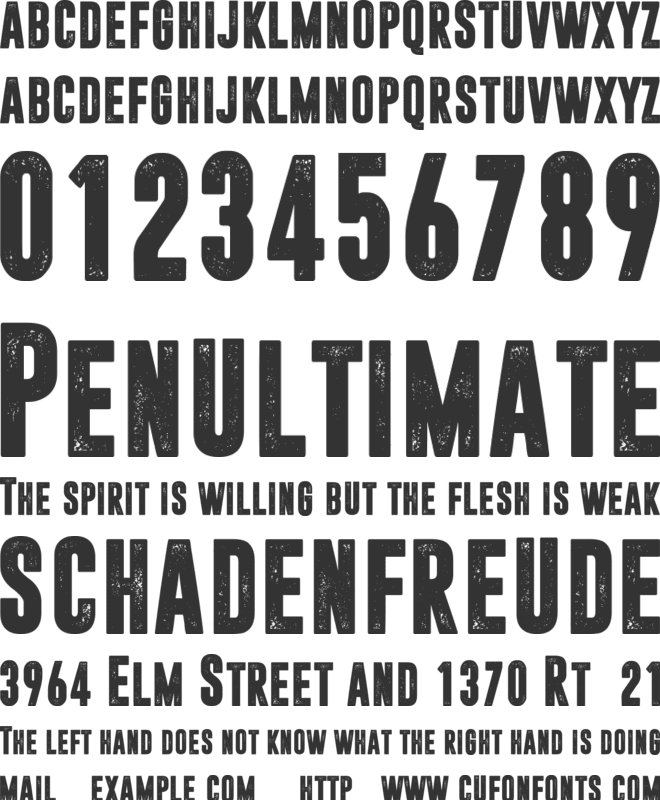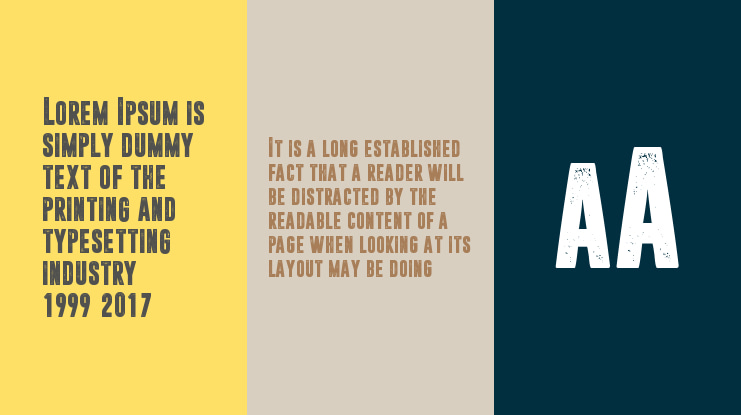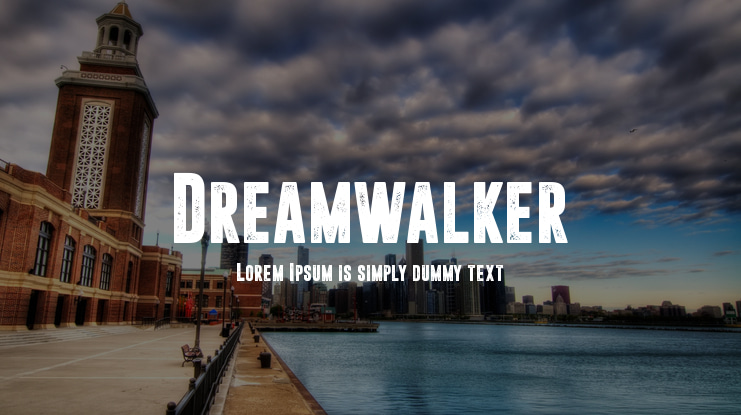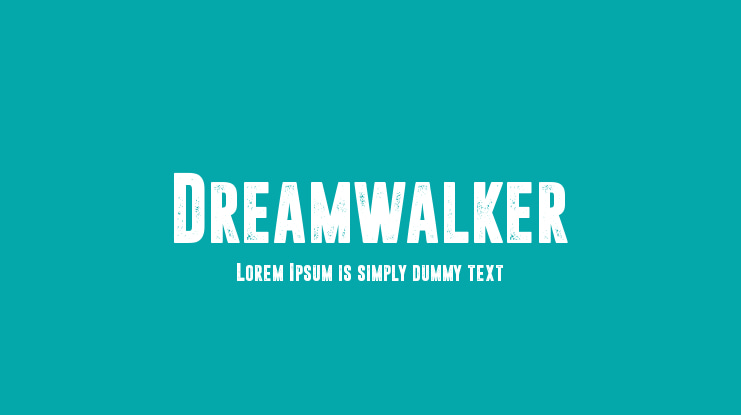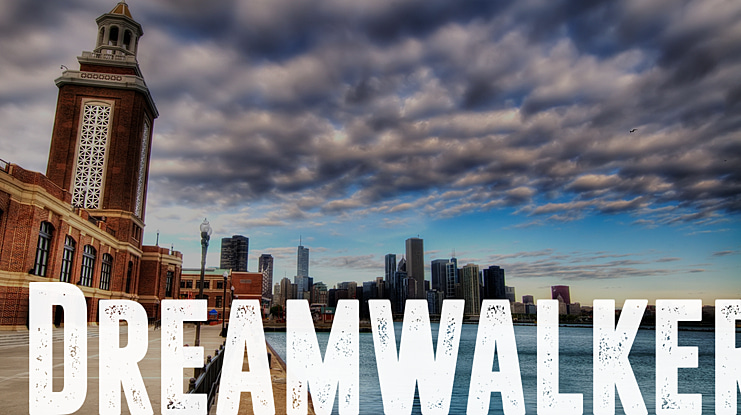
Dreamwalker Font Family
Textured Sans Serif font works well with vintage logos, headers, prints,videos and identity. Put it over your great photographs without having to modify the font with texture effects. Enjoy!